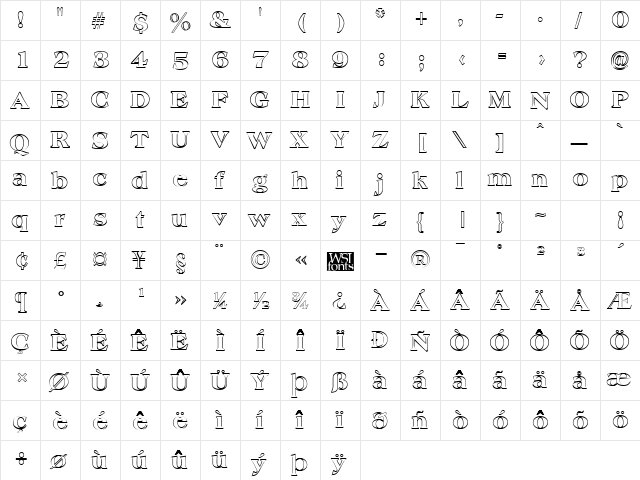
AmphionOutline Regular
Design Context for AmphionOutline Typeface
AmphionOutline brings ornamental detail and strong personality to headlines and identities, where visual impact matters more than quiet functionality.
Font Pairing: Pair with a clean neutral sans-serif for body copy to let AmphionOutline's character lead without overwhelming the composition.
Pro Tip: Use AmphionOutline exclusively at display sizes — it was designed to be seen, not read at length. Let a neutral companion handle body copy.